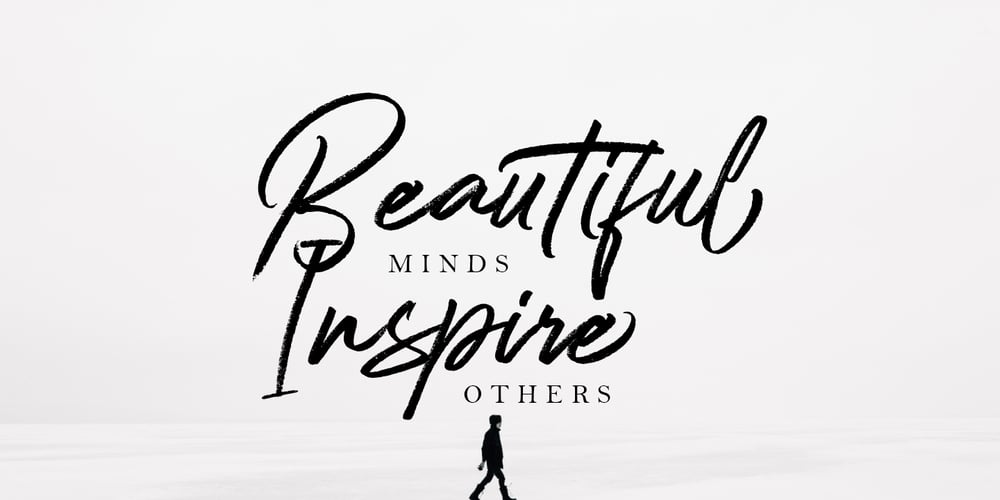
Qindom Font Family was designed by Alam Syahril and published by Realtype. Qindom contains 2 styles and family package options. Qindom is inspired by natural brush typography. Written in rapid motion using a slightly dry brush pen. This will give you a fresh and modern design. Qindom comes with uppercase and lowercase letters, large sets and small sets, numbers, alternative styles for several lowercase characters are also available that make your text and design more attractive.